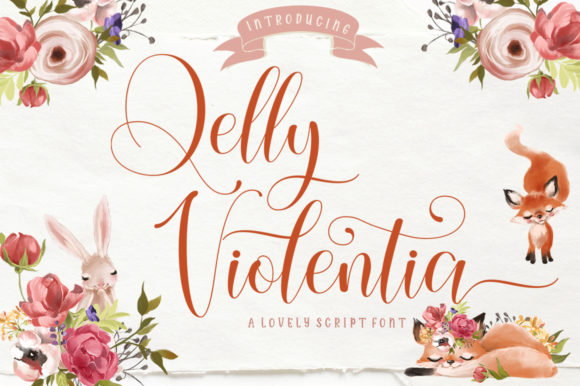
Qelly Violentia Font: Irregular Elegance for Modern Designs
A Typeface That Captures a Feeling
There’s a certain energy to designs that feel both modern and deeply personal. You see it in a wedding invitation that feels like it was just hand-lettered, or a logo that exudes a confident, feminine flair. That energy often comes from a specific kind of typeface—one that breaks the rigid grid without sacrificing legibility. The Qelly Violentia Font is a perfect example. It’s a modern script font characterized by its beautiful, irregular baseline and flowing, trendy letterforms. This isn’t your grandmother’s formal calligraphy; it’s a creative font with a lively, contemporary pulse.
What sets Qelly Violentia apart is its personality. The slight bounce and varied heights of the letters create a sense of organic movement, as if each word was written with a swift, confident hand. This gives it an approachable, human quality that rigid, geometric fonts often lack. It’s a premium font designed for projects where you want to inject warmth, sophistication, and a touch of fashionable style. The overall appeal is feminine, elegant, and unmistakably current, making it a versatile design asset for a wide range of creative endeavors.
Where Qelly Violentia Truly Shines
Understanding a font’s strengths is key to using it effectively. The Qelly Violentia Font excels in applications where you want to make an emotional connection and establish a distinct mood. Its nature as a display font means it’s built for impact, not for long blocks of body text.
In the world of brand identity, this typeface can be a powerful tool. It’s an excellent choice for logos, particularly for businesses in the beauty, lifestyle, fashion, or wedding industries. Think of a boutique bakery, a floral studio, or a high-end skincare brand. The font’s stylish curves help communicate a brand personality that is elegant, creative, and customer-focused. Beyond the primary logo, it works beautifully for subheadings, taglines, and packaging design where it can add a luxurious, handcrafted feel.
For print and editorial projects, Qelly Violentia is a natural fit. It brings a personal touch to wedding invitations, save-the-dates, thank you cards, and greeting cards. In editorial design, consider using it for pull quotes, chapter titles in a book, or feature headlines in a magazine. Its irregularity draws the eye and adds visual interest to a page layout. The font also translates beautifully to social media graphics, helping posts stand out in a crowded feed with its stylish and readable character.
Making It Work: Practical Tips for Designers and Creators
Choosing the right font is only half the battle; using it well is what separates good design from great design. Here’s how to get the most out of the Qelly Violentia typeface.
Font Pairing is Everything. A script font, no matter how beautiful, needs a stable partner. To create effective visual hierarchy, pair Qelly Violentia with a clean, simple sans serif font or a classic serif font. The contrast allows the script to be the star while ensuring overall readability. For example, use Qelly Violentia for a headline like “Summer Collection” and pair it with a neutral sans serif like Montserrat or Lato for body copy. This combination feels balanced, professional, and easy to navigate.
Consider Readability and Context. The irregular baseline is a defining feature, but it’s wise to test it at the size it will be viewed. For very small text, like a long paragraph, the movement might hinder readability. It’s best used for short bursts of text: titles, headers, logos, and callouts. Always check kerning (the spacing between letters) to ensure words look cohesive, especially in logo design where every detail matters.
Leverage the Included Styles. A quality commercial font like Qelly Violentia often comes with more than just the basic alphabet. Look for included features such as stylistic alternates, ligatures, and swashes. These extra characters can add unique flair to your designs. A stylistic alternate might offer a different letter “g” or “s” that better suits your project’s aesthetic, while ligatures can create smoother connections between specific letter pairs for a more authentic handwritten flow.
The Lasting Impression of Intentional Typography
Typography is a silent ambassador for your message. The choice of a typeface like Qelly Violentia is a deliberate decision to project a specific tone—one that is modern, feminine, and elegantly expressive. It’s more than just letters on a page; it’s a tool for shaping brand perception and engaging an audience on an emotional level. When used thoughtfully, in the right context and with careful attention to pairing and readability, this script font becomes more than a design asset; it becomes a defining characteristic of a project’s voice. Whether you’re crafting a brand identity, designing packaging, or creating stunning social media graphics, choosing a font with this much personality is a step toward making your work truly memorable.